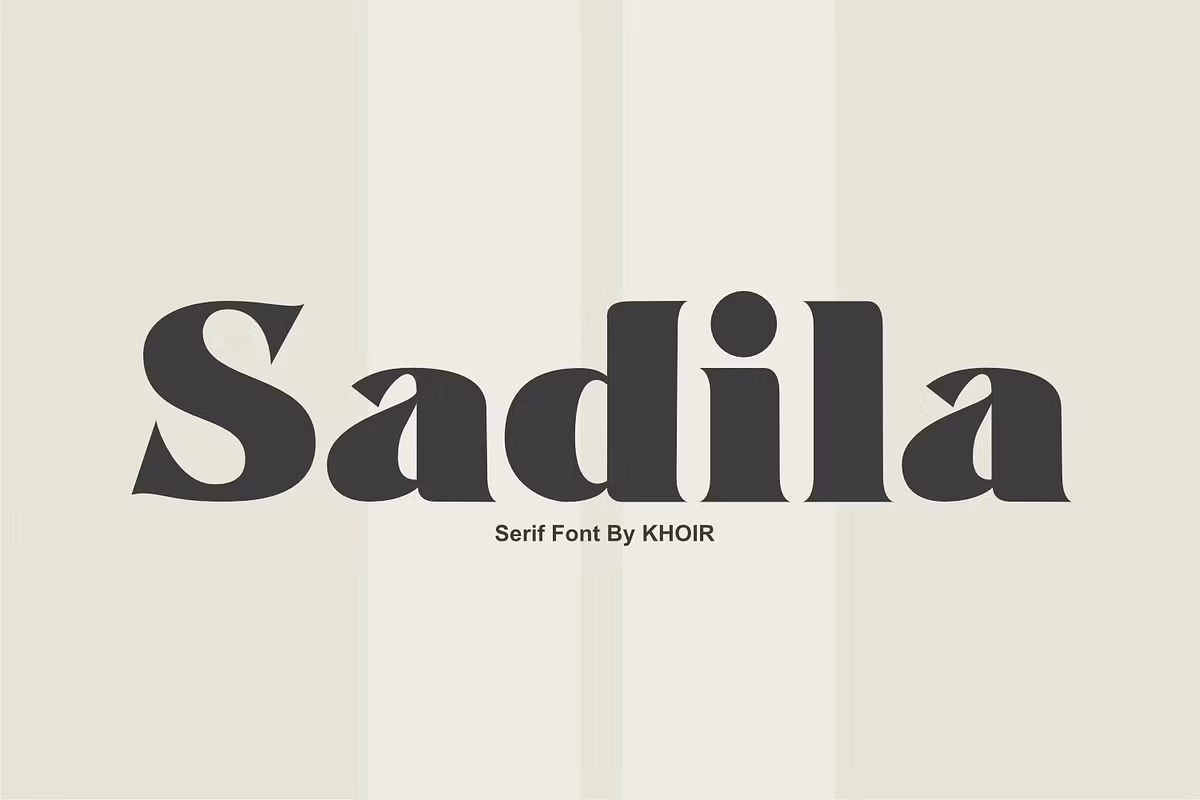
You must purchase this font for commercial use. However, you can download Sadila Font Free Download for testing purposes. Sadila is a modern and elegant serif font that combines contemporary design with a classic touch. Perfect for high-end branding, editorial designs, logos, websites, and marketing materials, this font offers both style and readability.
With its well-balanced letterforms and timeless aesthetic, Sadila is versatile enough to be used for both professional and creative projects. Whether you're working on a luxury brand, a fashion line, or an editorial spread, this font adds sophistication and polish to your typography.